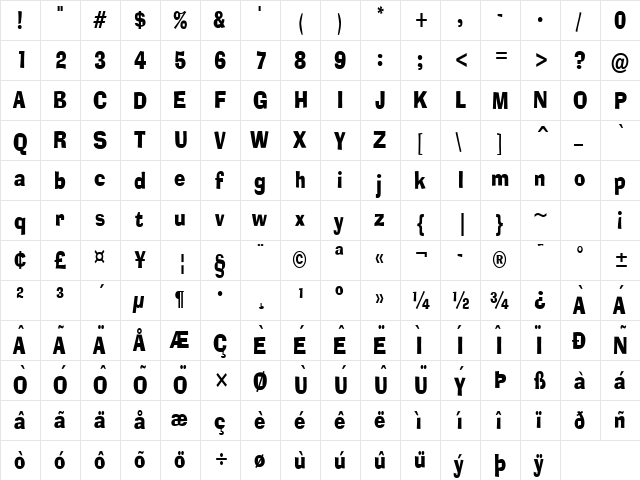
Alor Narrow Condensed Bold
Design Context for Alor Narrow Condensed Typeface
Alor Narrow Condensed is a composed and adaptable typeface that performs quietly and consistently across a wide range of design contexts. The heavy weight commands attention and anchors typographic hierarchies. The condensed width makes it efficient for tight spaces without sacrificing legibility.